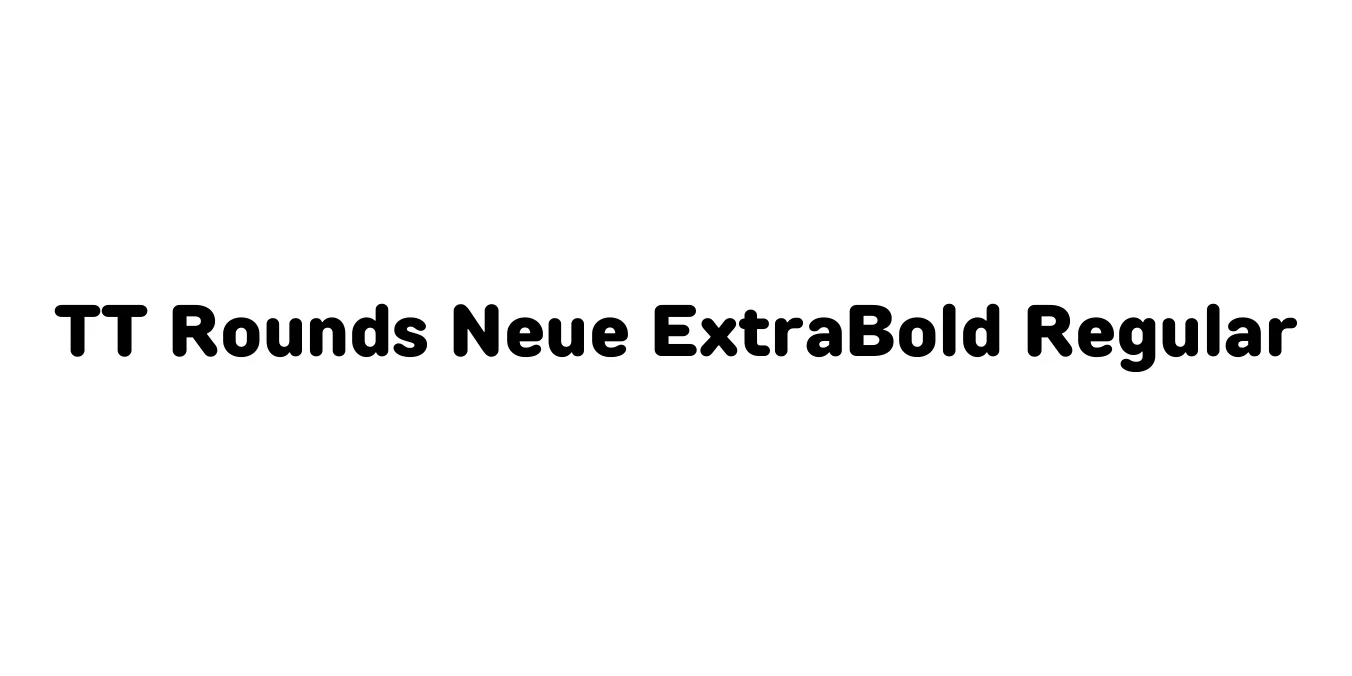
TT Rounds Neue ExtraBold Regular
Designed by TypeType
| Category | Rounded Sans Serif |
| Designer | TypeType |
| Similar Fonts | VAG Rounded, Helvetica Rounded, Arial Rounded, Nunito |
TT Rounds Neue ExtraBold Regular is a complete evolution of the original TT Rounds family, meticulously redesigned by the TypeType team to meet modern typographic standards. This specific weight represents the boldest expression of the family, featuring soft, rounded terminals that maintain a perfect balance between geometric structure and organic friendliness. The redesign focused on improving the internal proportions and kerning, ensuring that even at its heaviest weight, the font remains legible and visually harmonious.
Functionally, TT Rounds Neue ExtraBold is a powerhouse for display typography. It incorporates extensive OpenType features, including case-sensitive forms and various sets of figures, making it highly adaptable for complex design tasks. Its thick, approachable strokes are designed to convey warmth and reliability, making it a top choice for designers who want to move away from the coldness of traditional geometric sans serifs while retaining a professional and contemporary aesthetic.
TT Rounds Neue ExtraBold Regular Best Uses
Excellent for creating approachable and modern visual identities.
Perfect for high-impact, bold titles in magazines or websites.
Ideal for consumer goods and products that require a soft, friendly look.
Strong enough to stand alone as a distinctive wordmark.